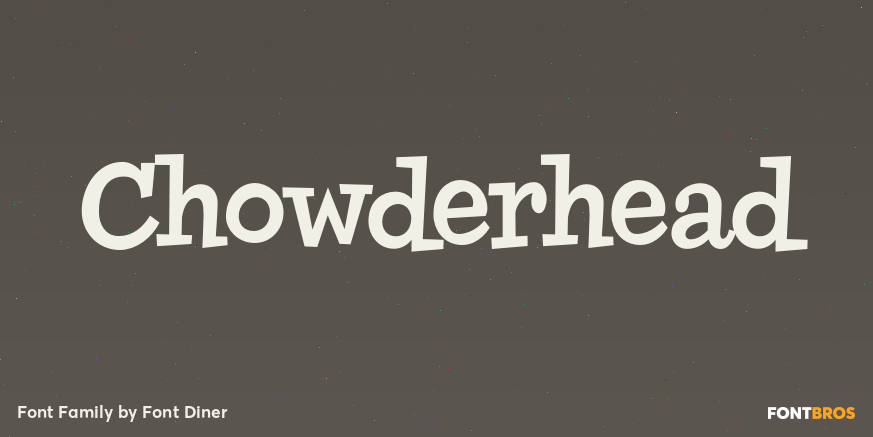
HomeFont BrosRetro (1936-1965)Chowderhead Retro (1936-1965)SerifWacky Chowderhead FacebookTwitterPinterestWhatsApp 1 of 1 About Chowderhead It\’s simple! It\’s fun! It\’s Chowderhead! Dig in and get silly with this casual retro serif font!  DOWNLOAD NOW 76 0 People also explored Quick Type Crying Font Soulmate Font Holiday Font School Days Font Pineapple Font Monika Font Sunday Burn Font Amardiola Font Brotherhead Font Funny Smile Font Jhonny Welbecky Font Tags2172SChowderhead Font Previous articleGulkaveNext articleAhkio LEAVE A REPLY Cancel reply Comment: Please enter your comment! Name:* Please enter your name here Email:* You have entered an incorrect email address! Please enter your email address here Website: Save my name, email, and website in this browser for the next time I comment. Unlock Endless Creativity with the FREE September Clipart Huge Bundle (Valued at $700!) Personal Use Free Concrete Wall Personal Use Free Read more The Kingdom Personal Use Free Read more Archipellago Personal Use Free Read more Sybil Green Personal Use Free Read more BLOG To increase your work productivity, choose the most readable fonts. In today's fast-paced work environment, where digital communication and information consumption are integral to our daily routines, the choice of fonts can significantly impact... Where to Buy American Fonts Online in 2024 The 10 Best Handwriting Fonts to Add Personality to Your Designs Free Fonts Risk: Why Free Fonts Can Be Dangerous for Designers